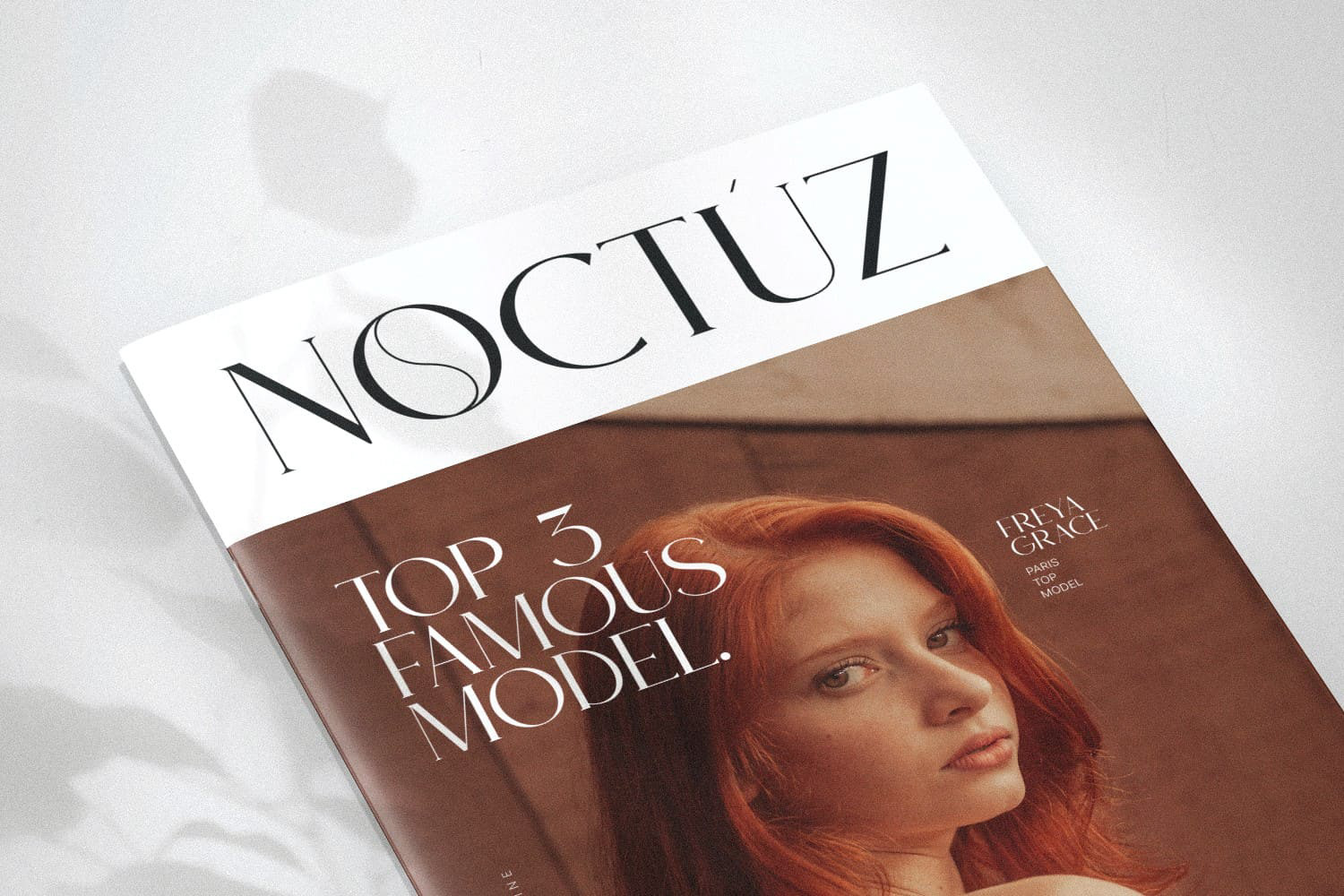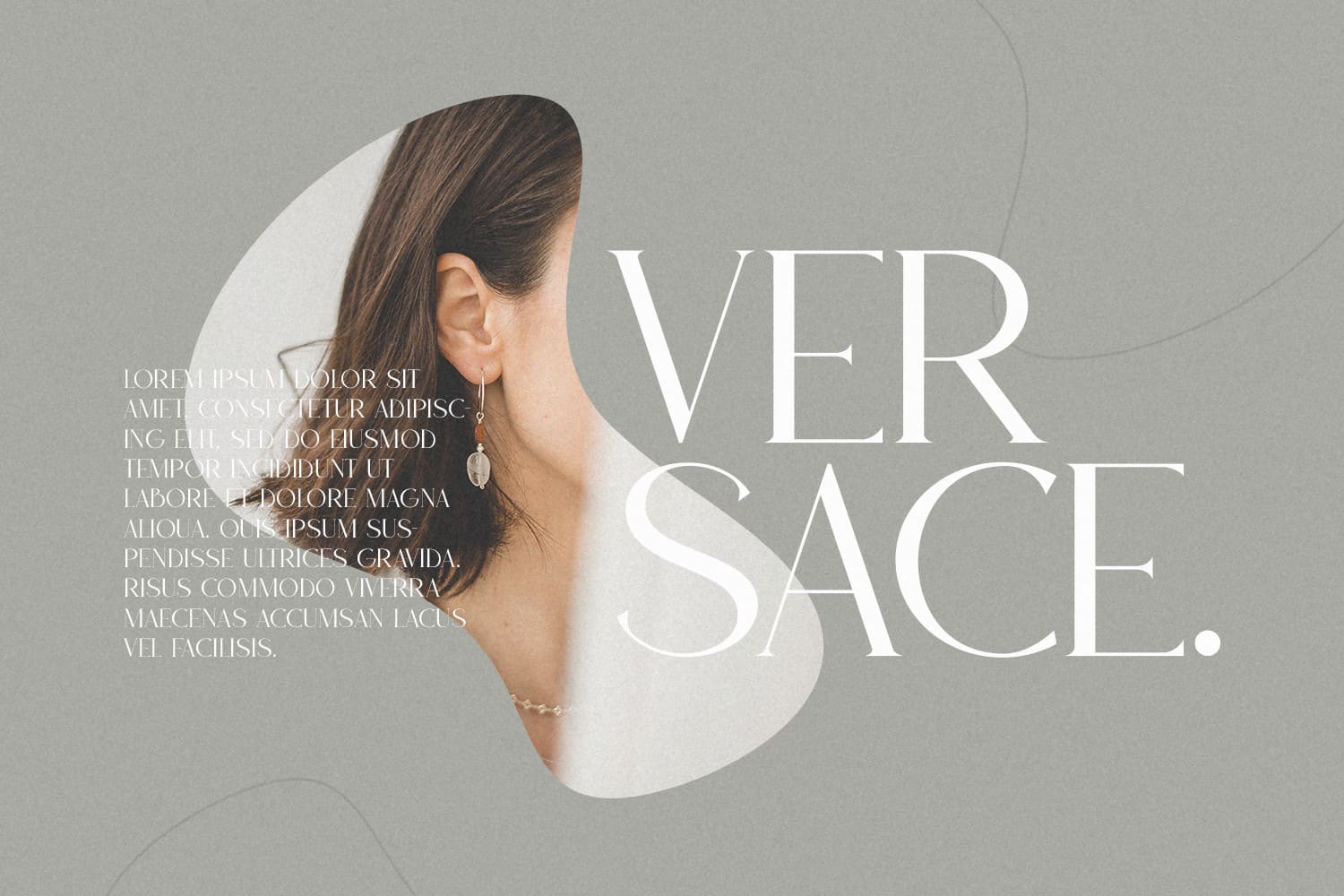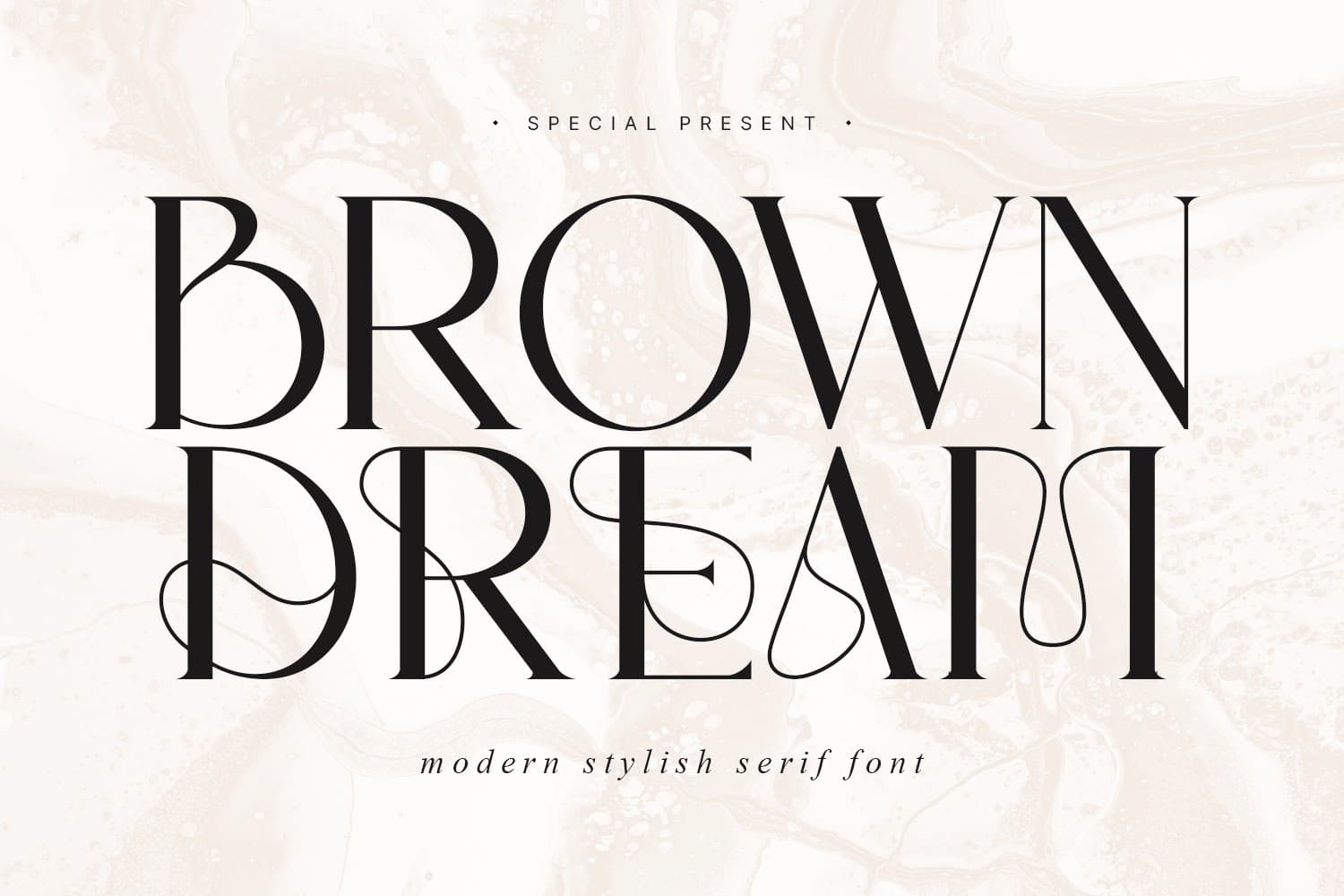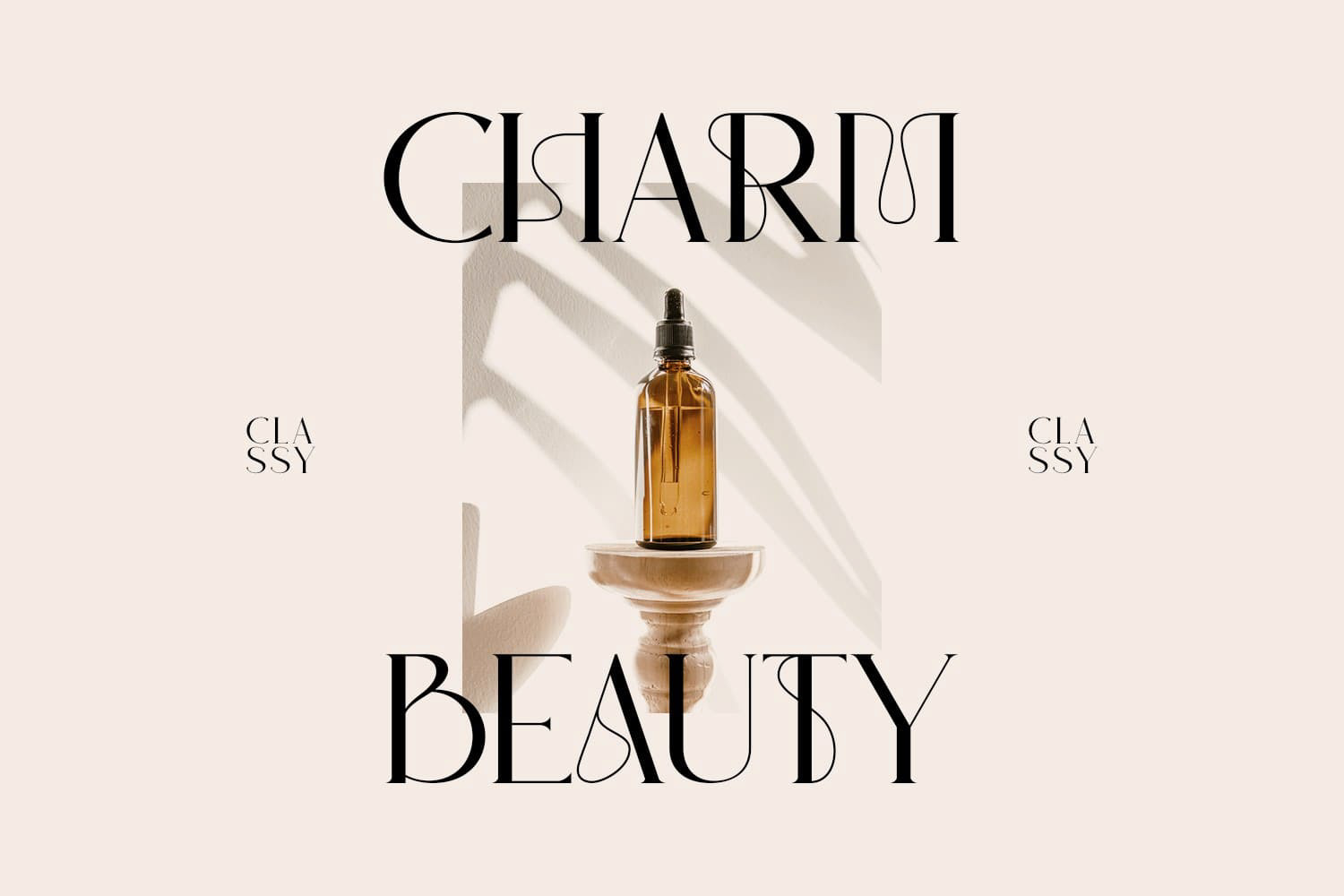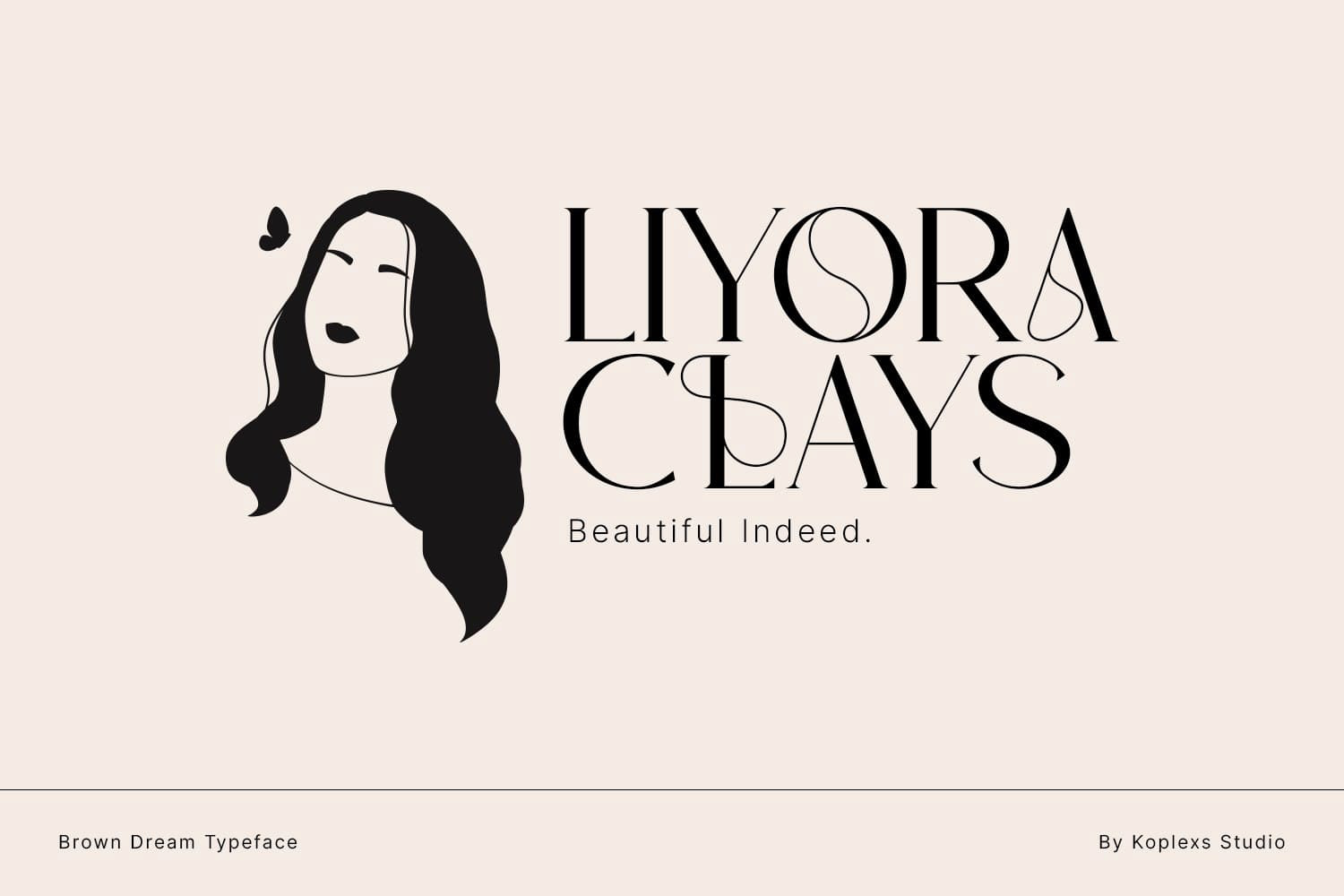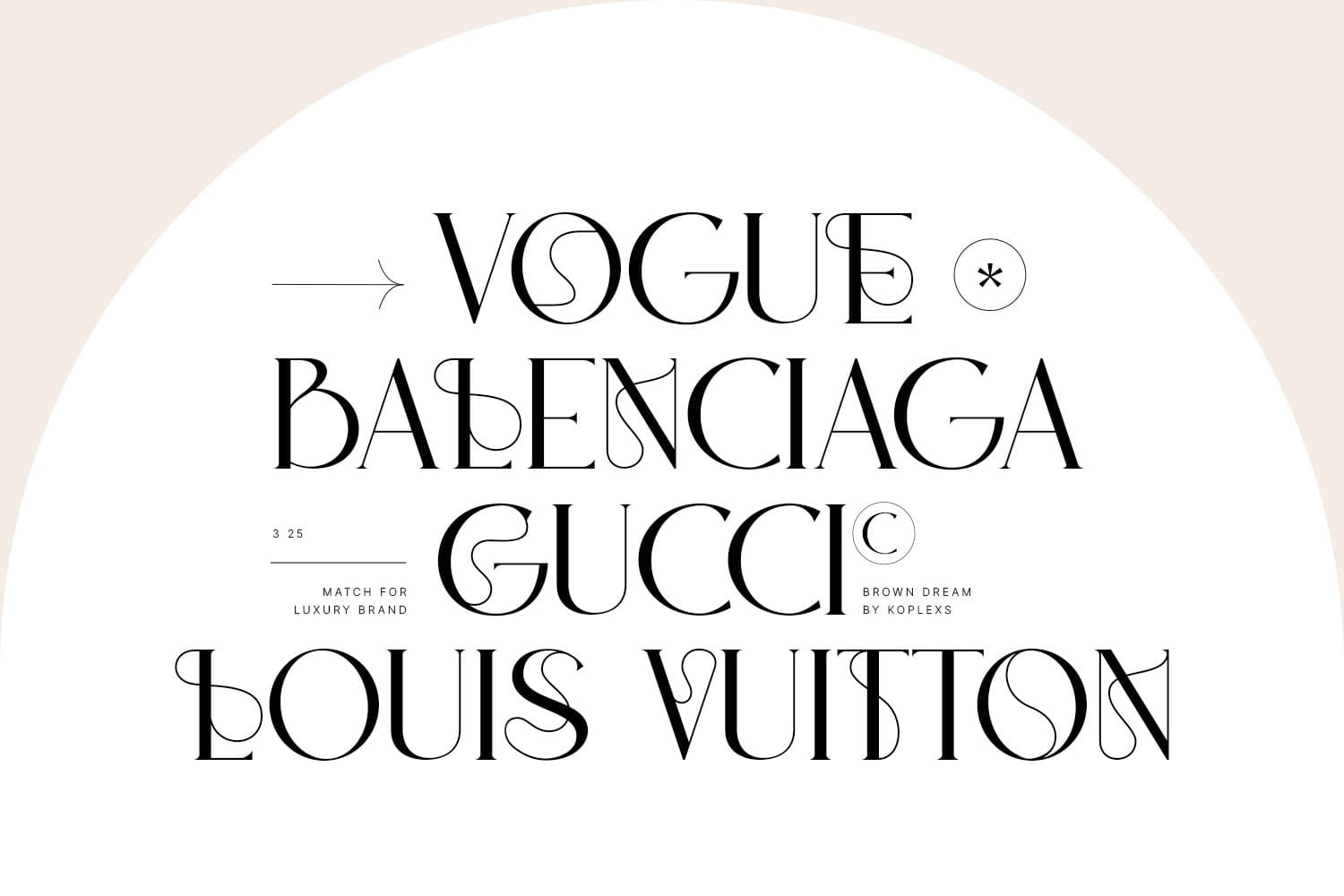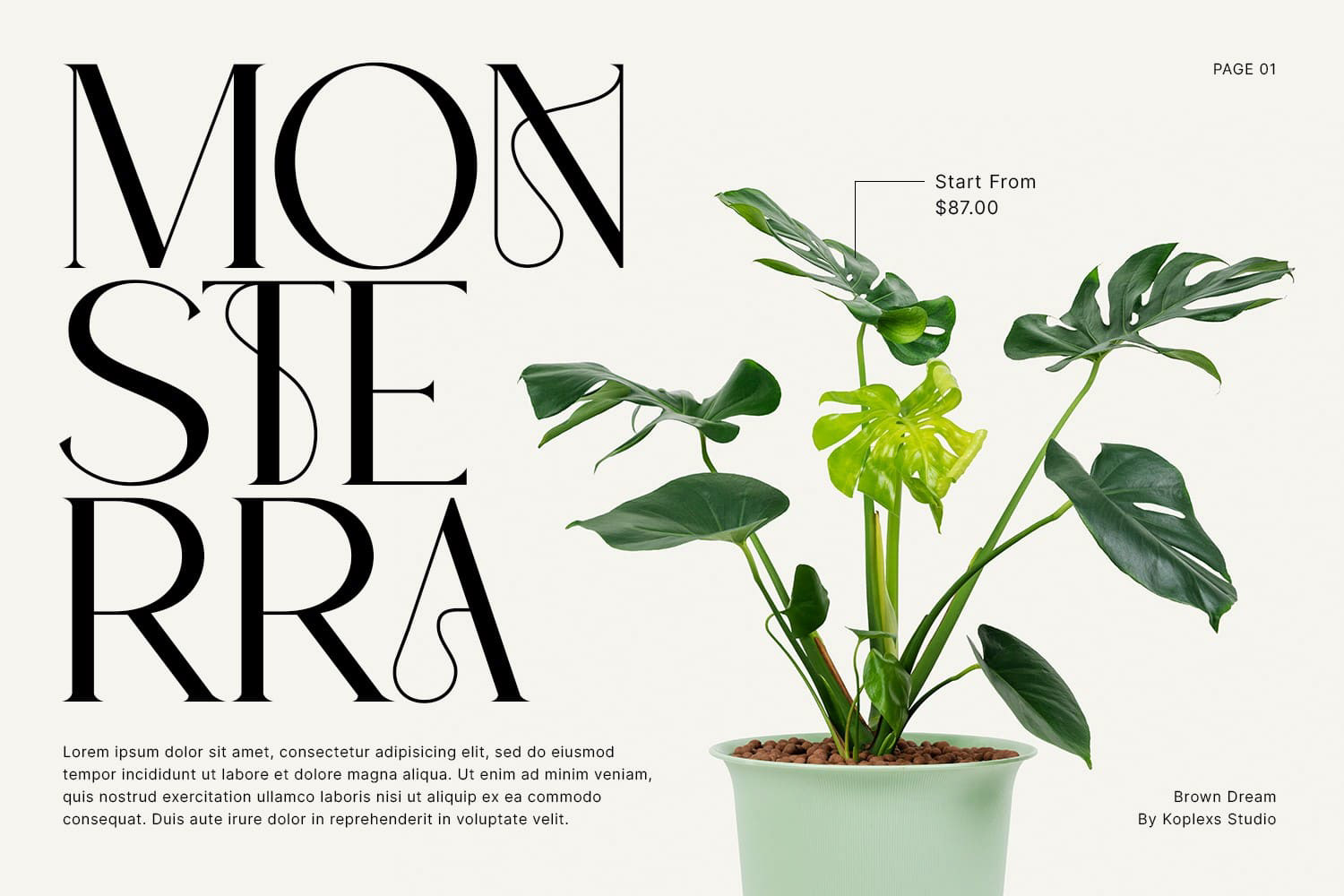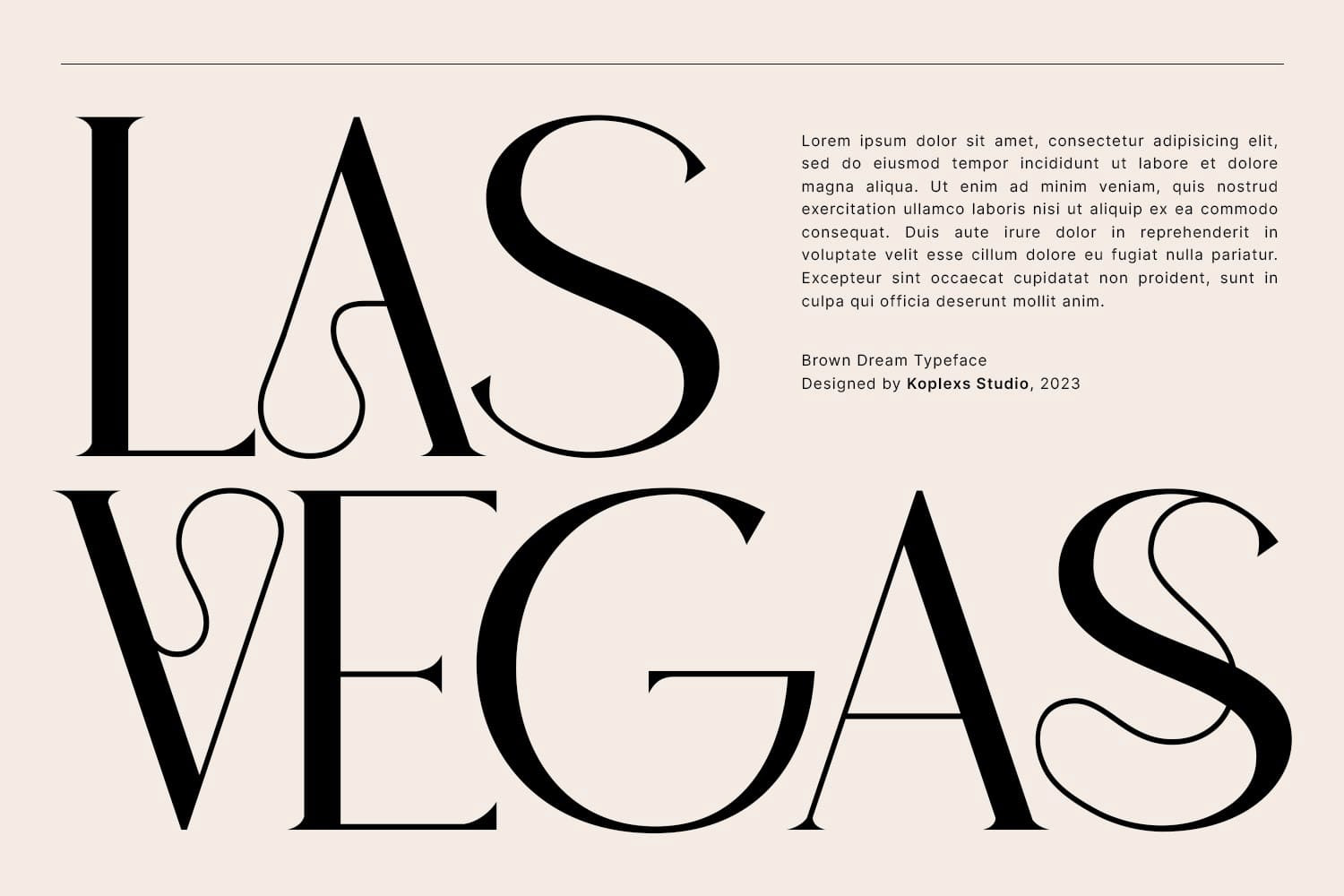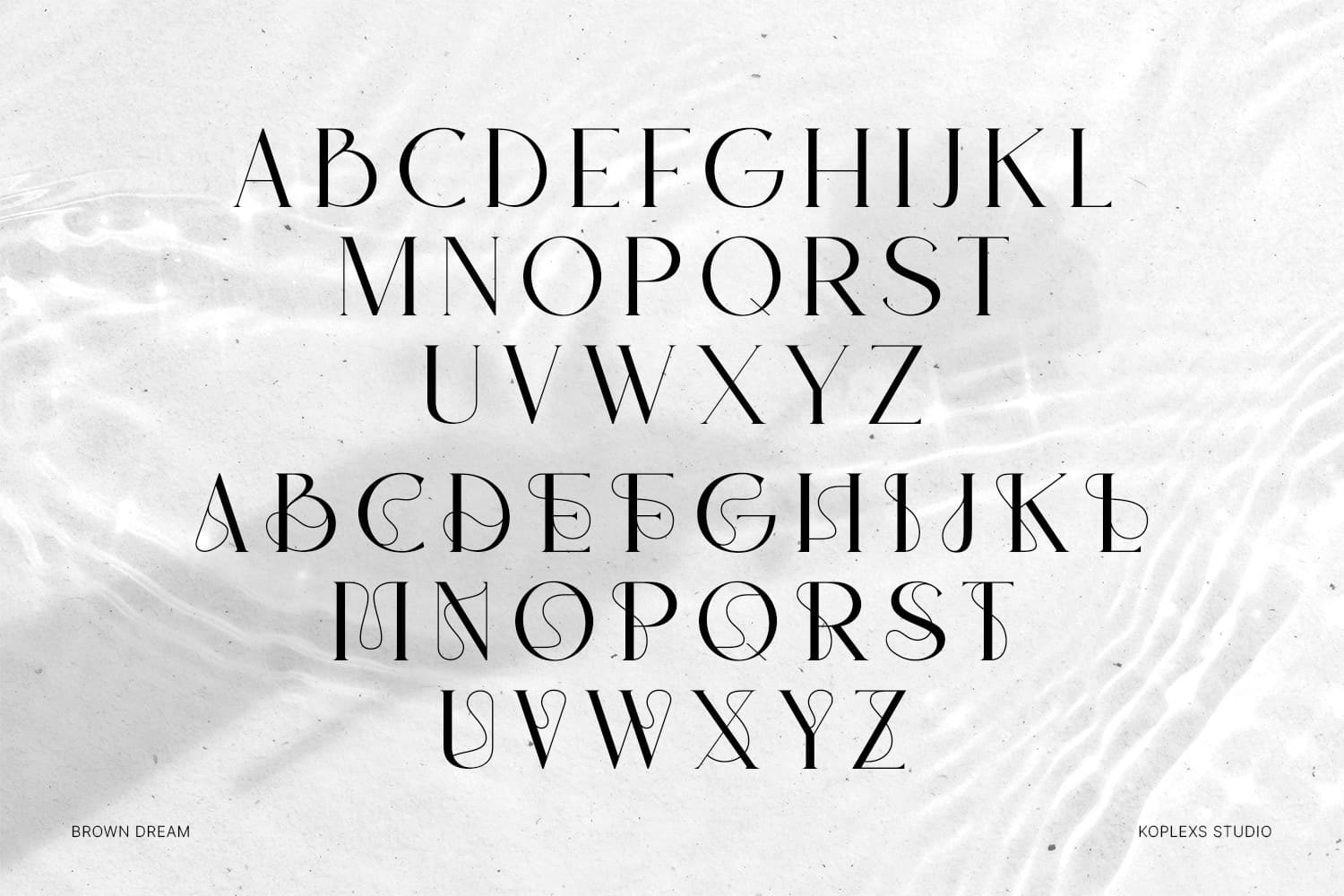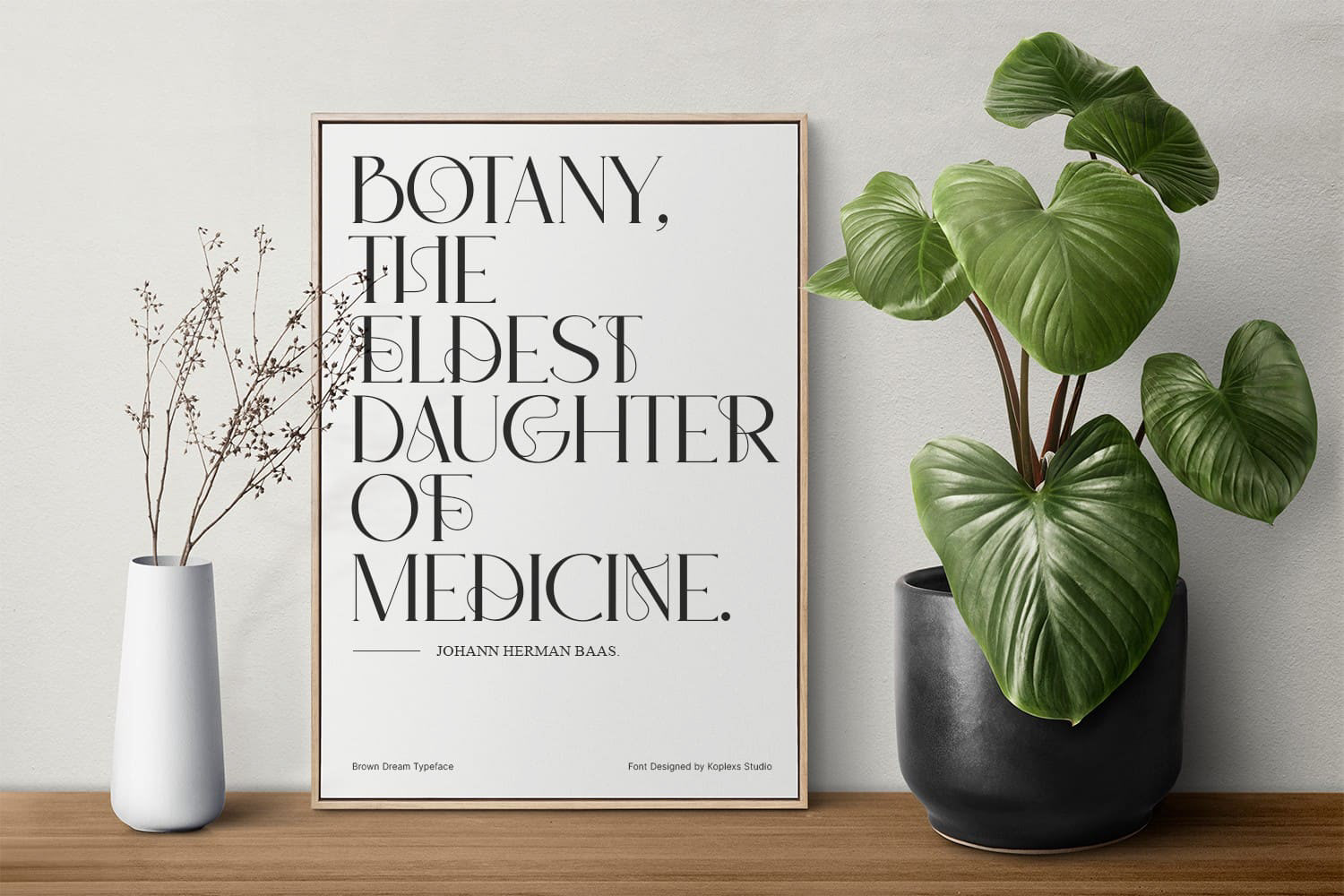
Brown Dream - Modern Stylish Serif Font
Brown Dream font  is a collection of modern display font, feminine, beautiful and classy characters, giving you a unique look for any branding or design need.
Brown Dream font is perfect for an elegant & luxury logo, classy editorial design, women’s magazine, fashion brand, cosmetic brand, fashion promotion, modern advertising design, invitation card, art quote, home decoration, book/cover titles, special events, and much more.